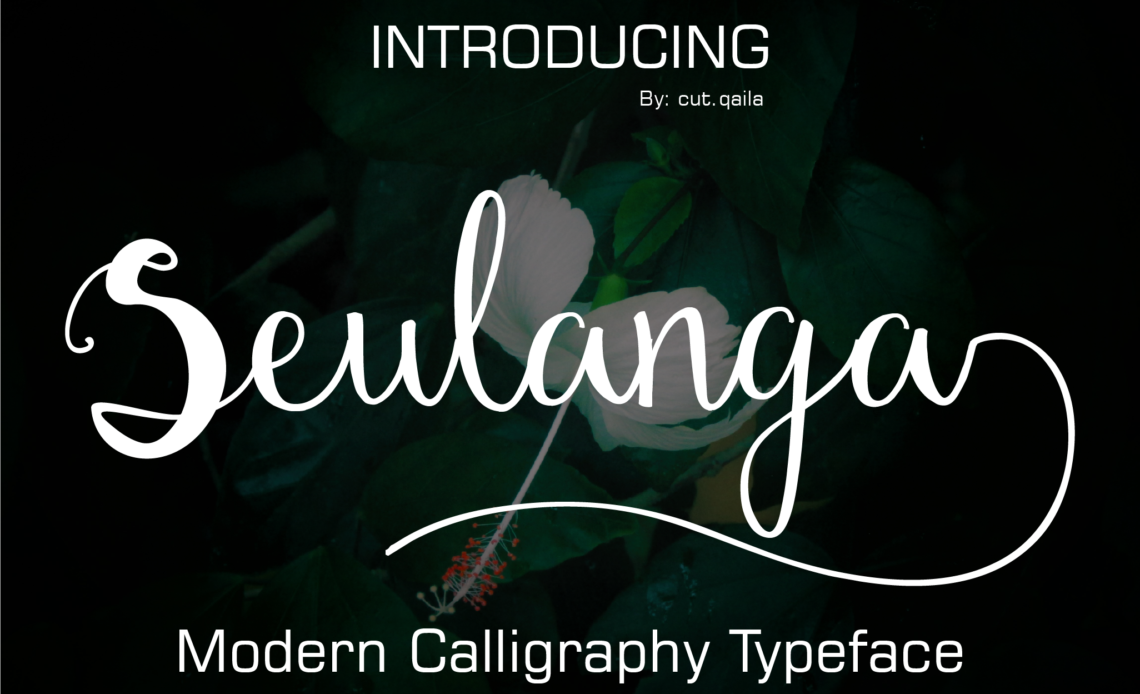
Seulanga Font
Step into the captivating realm of Seulanga, an exquisite script font that effortlessly exudes elegance with its enchanting calligraphic strokes. Immerse yourself in a world of creative possibilities where Seulanga gracefully adorns your every endeavor, elevating your designs to new heights of beauty and sophistication.
Crafted with meticulous attention to detail, Seulanga captures the essence of timeless artistry, evoking a sense of wonder and enchantment with each character it graces. Its fluid curves and delicate flourishes dance across the page, creating an aura of refinement that will captivate your audience.
Whether you're crafting unforgettable logos that leave a lasting impression, designing invitations that convey the joy of special occasions, or creating apparel that whispers tales of elegance, Seulanga is your muse, your faithful companion in the pursuit of design excellence. Its enchanting script flows effortlessly, adding a touch of magic to every project it touches.
But Seulanga is more than just a font; it's an invitation to unleash your creativity, to embrace the beauty that lies within your imagination. Its versatility knows no bounds, making it the perfect choice for a myriad of projects, from personal branding to social media campaigns and beyond.
With Seulanga as your creative ally, your designs will transcend the ordinary, captivating hearts and minds with their undeniable charm. Its timeless appeal ensures that your creations will endure the test of time, becoming cherished keepsakes that evoke fond memories and endless admiration.
Embark on a creative odyssey with Seulanga and witness the transformative power of a font that inspires, captivates, and leaves an indelible mark on the hearts of all who behold its beauty. Let Seulanga be your guiding light, leading you to a realm of design brilliance where your imagination knows no limits.